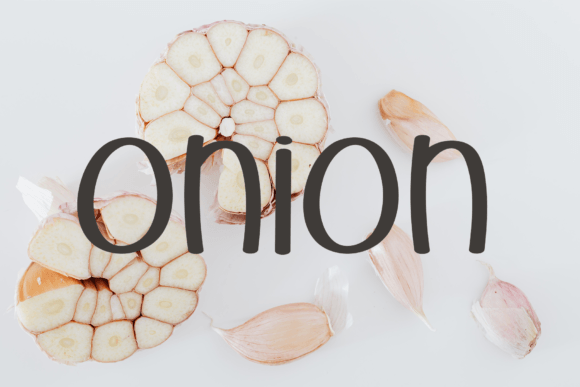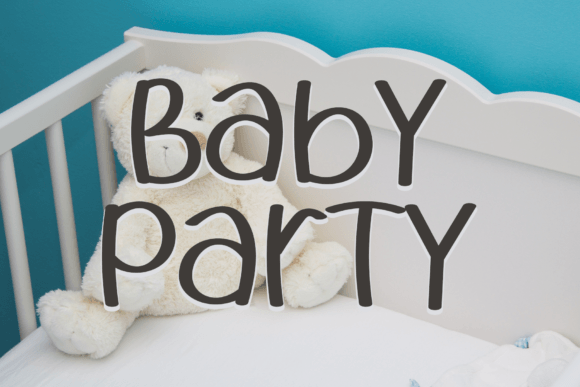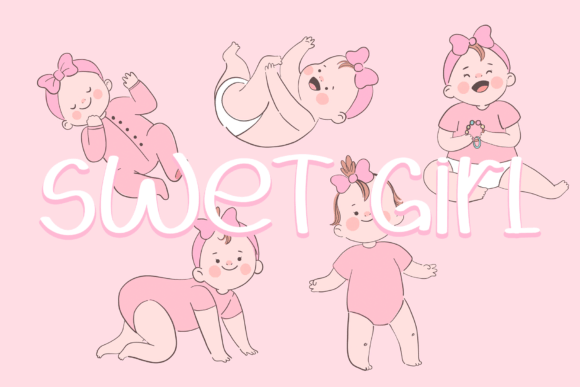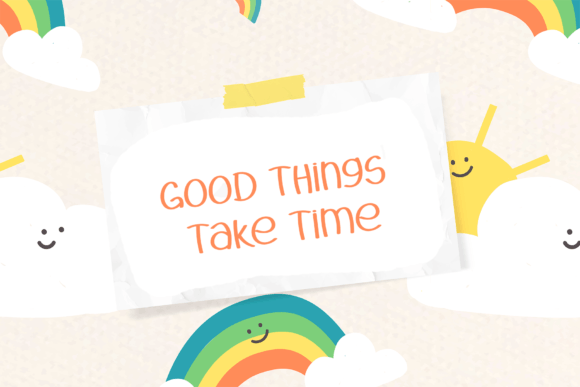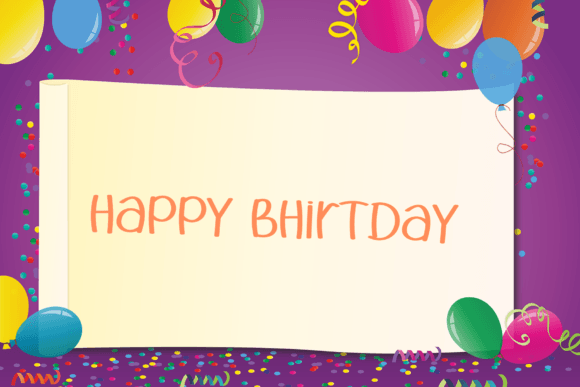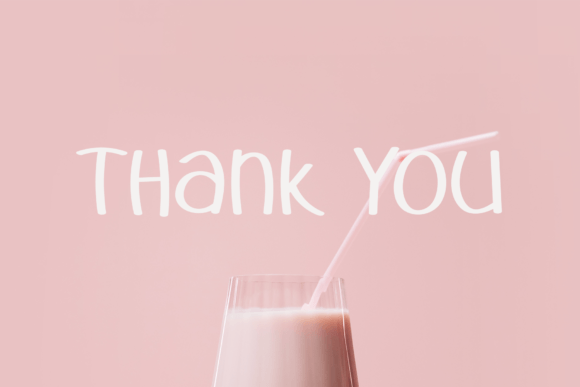
Milkshake Font
About Milkshake Font
“Milkshake” is presented as a sweet and beautiful handwritten font with characters that dance along the baseline, creating a delightful and dynamic appearance. This font is crafted to bring a sense of sweetness and a luxurious spark to any design project you choose to embark upon.
The sweetness and beauty of “Milkshake” make it versatile for a variety of creative applications. Whether you’re working on invitations, branding materials, posters, or any project that could benefit from a delightful and playful aesthetic, this font adds a touch of luxury.
The mention of characters dancing along the baseline implies a dynamic and whimsical quality, contributing to the unique and lively nature of the font. This characteristic makes “Milkshake” an excellent choice for projects where you want to infuse a sense of movement and joy.
The promise of adding a luxury spark to design projects suggests that “Milkshake” can elevate the overall aesthetic and bring a sense of sophistication to your creations.
In summary, “Milkshake” is a sweet and beautiful handwritten font designed to add a luxurious spark to your design projects. Embrace its distinctive characters and playful baseline, and let it infuse your designs with charm, sweetness, and a touch of elegance.